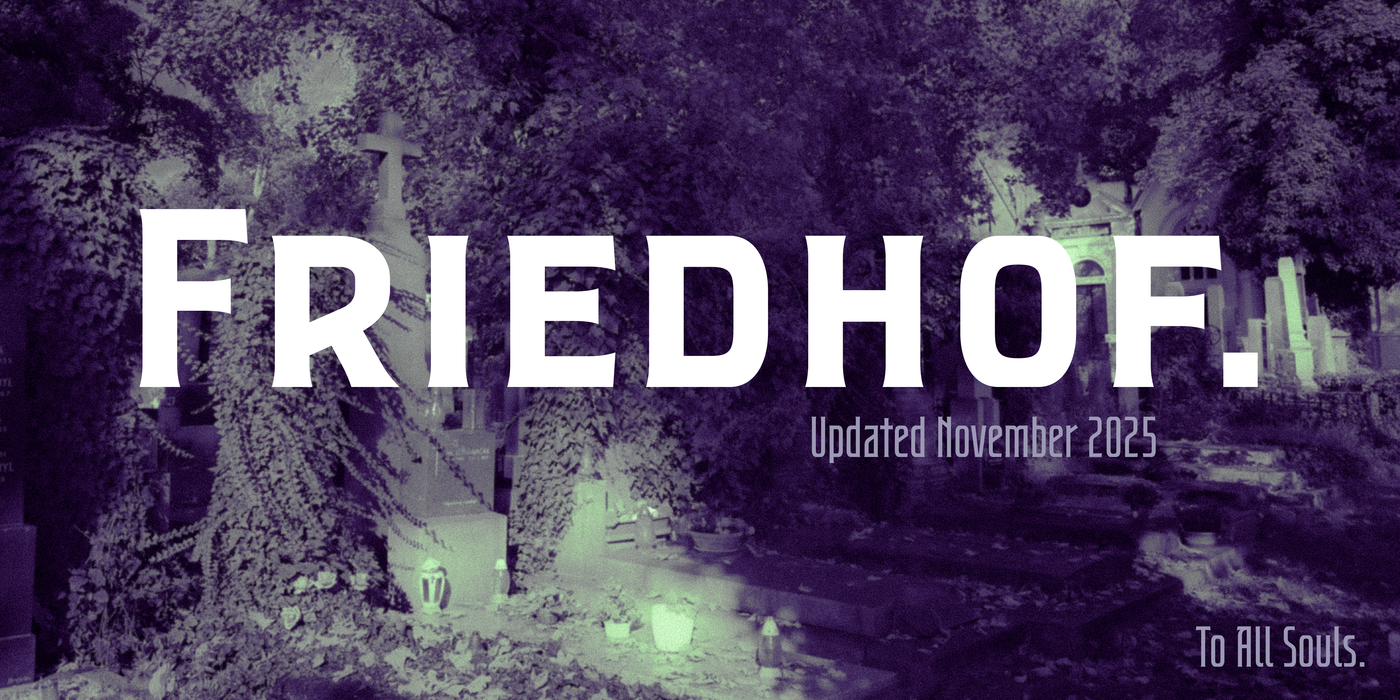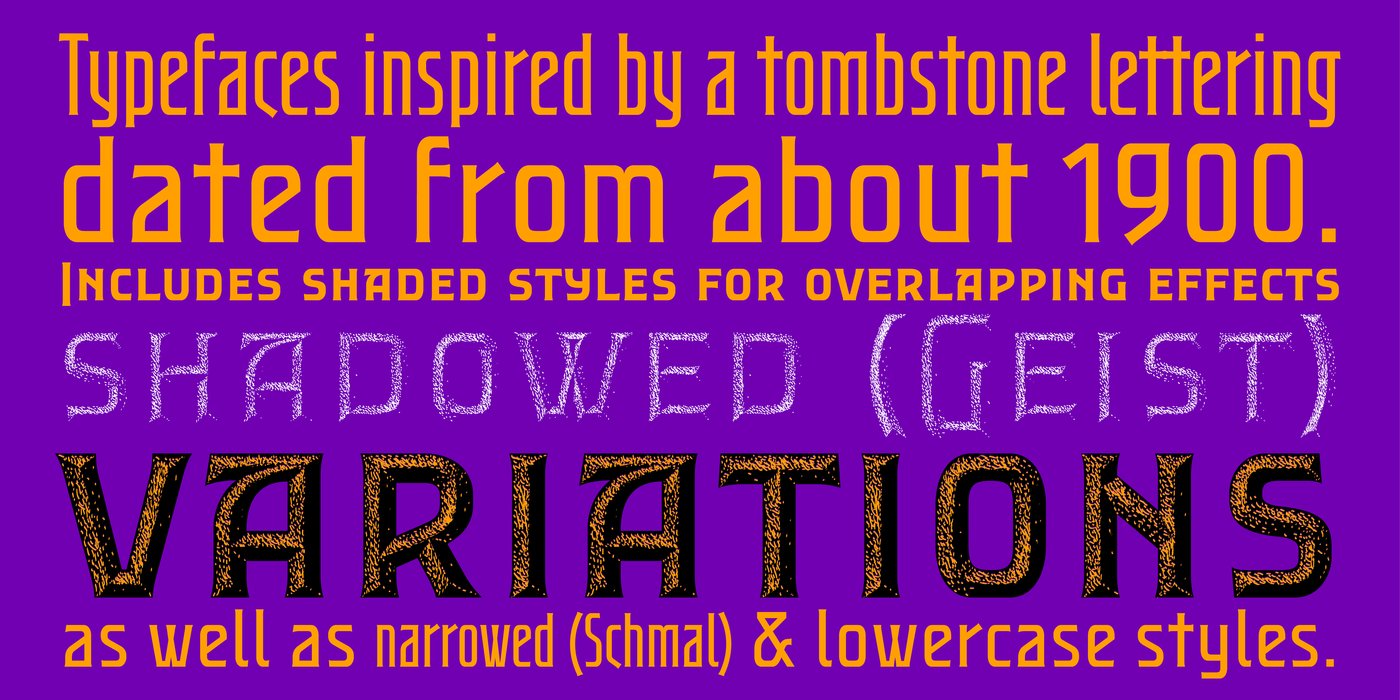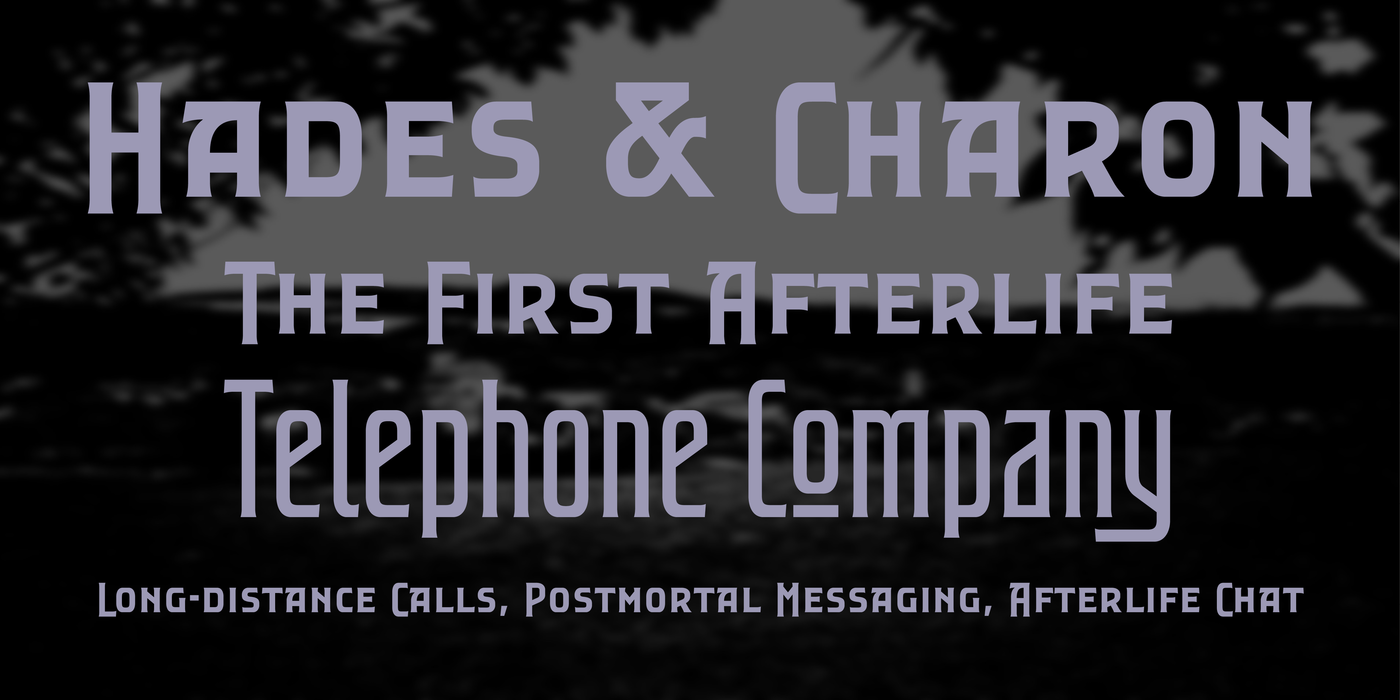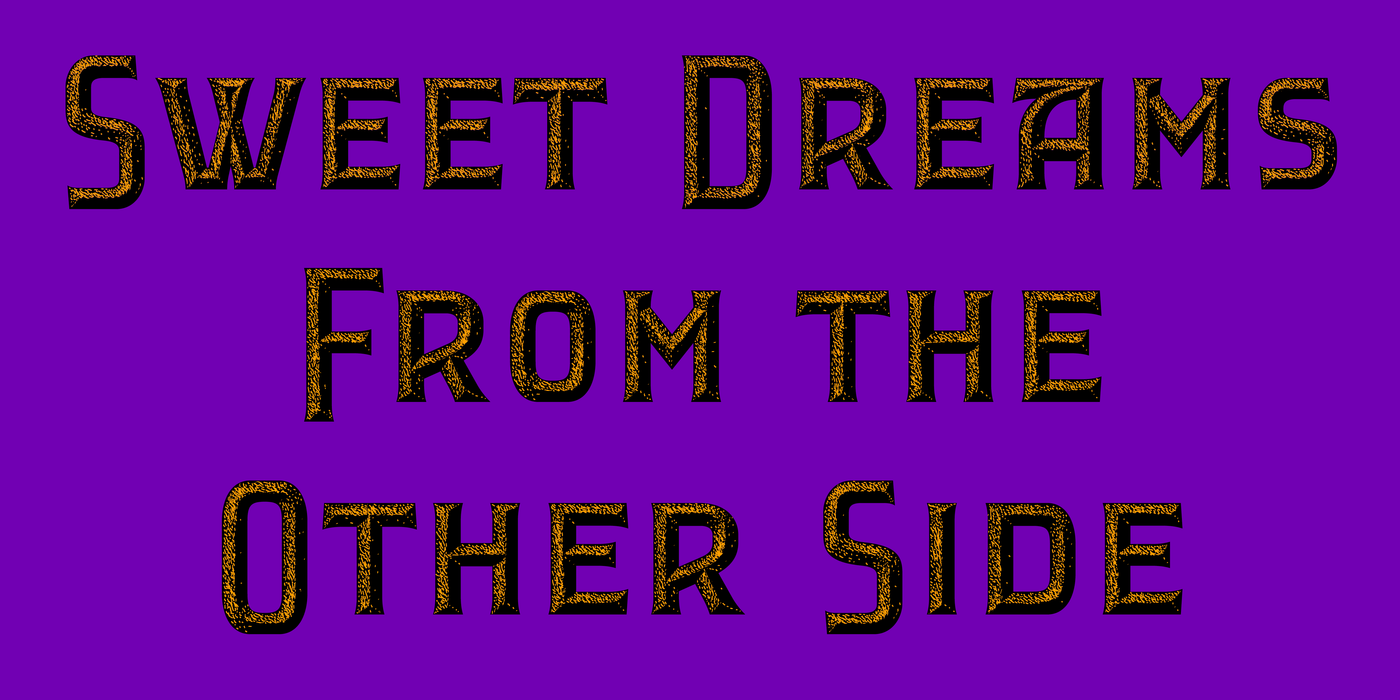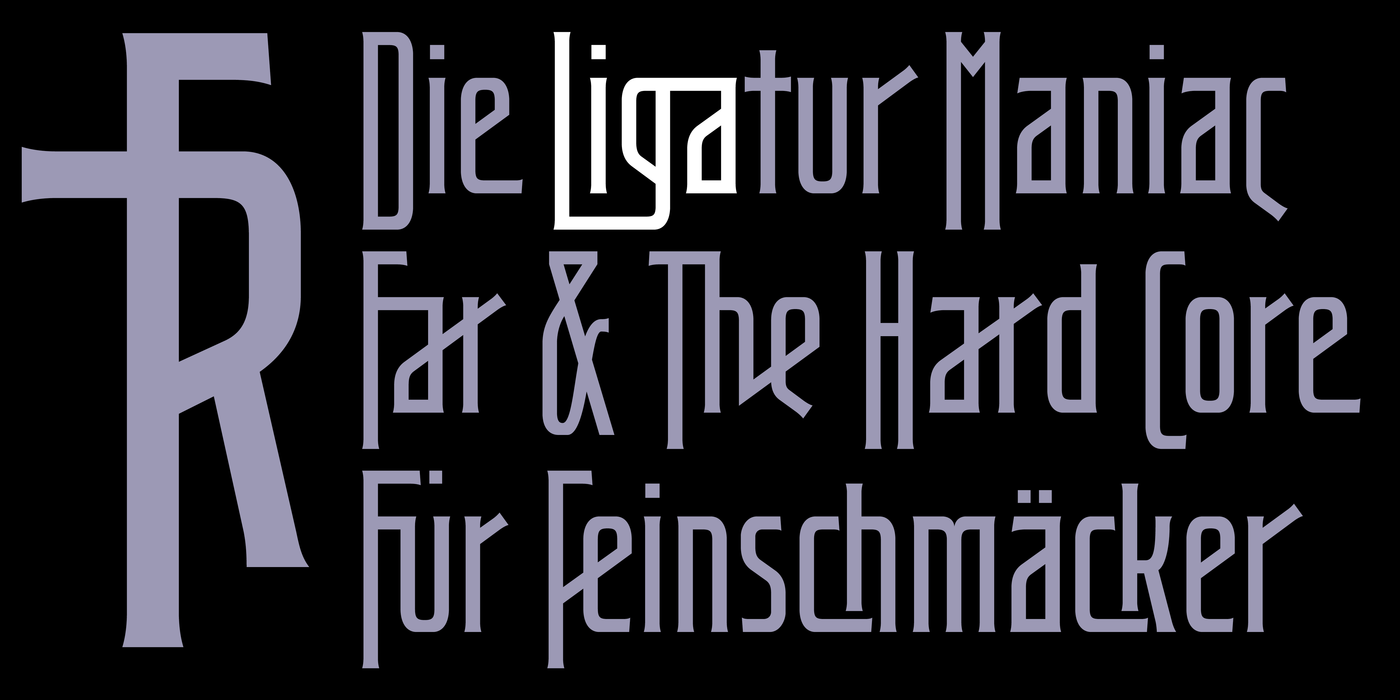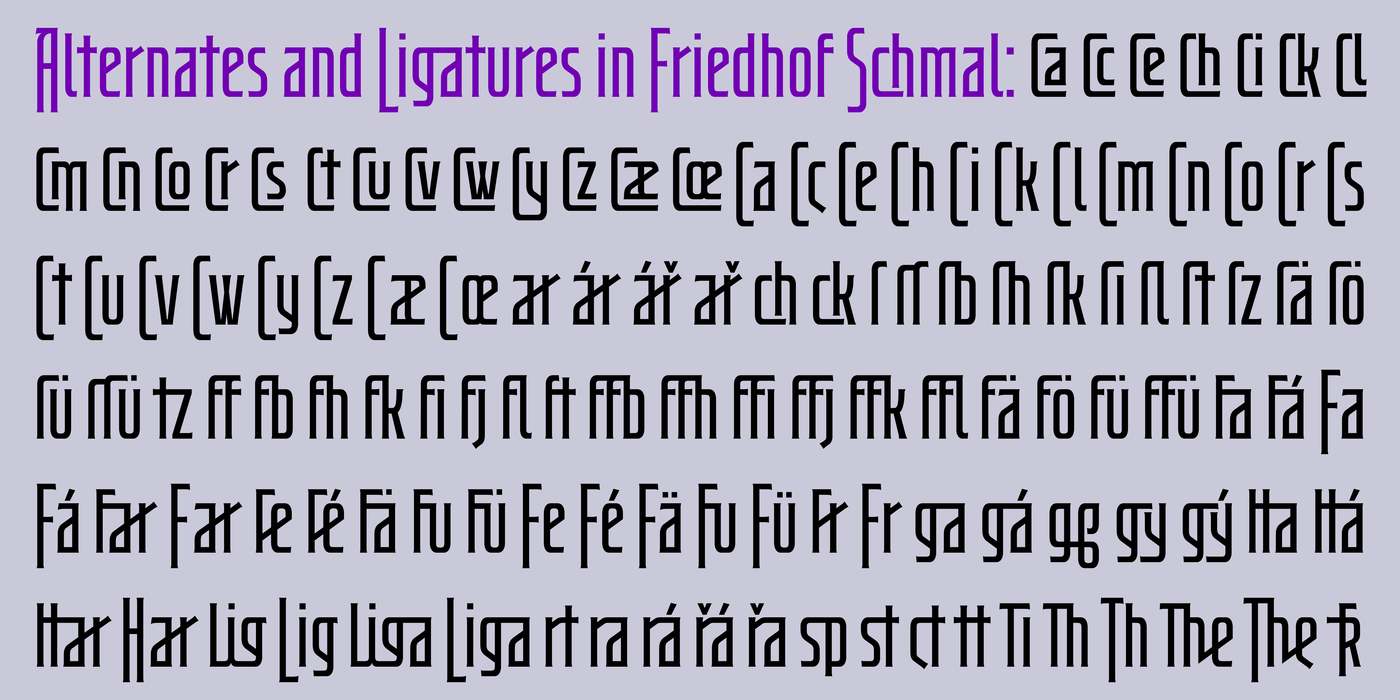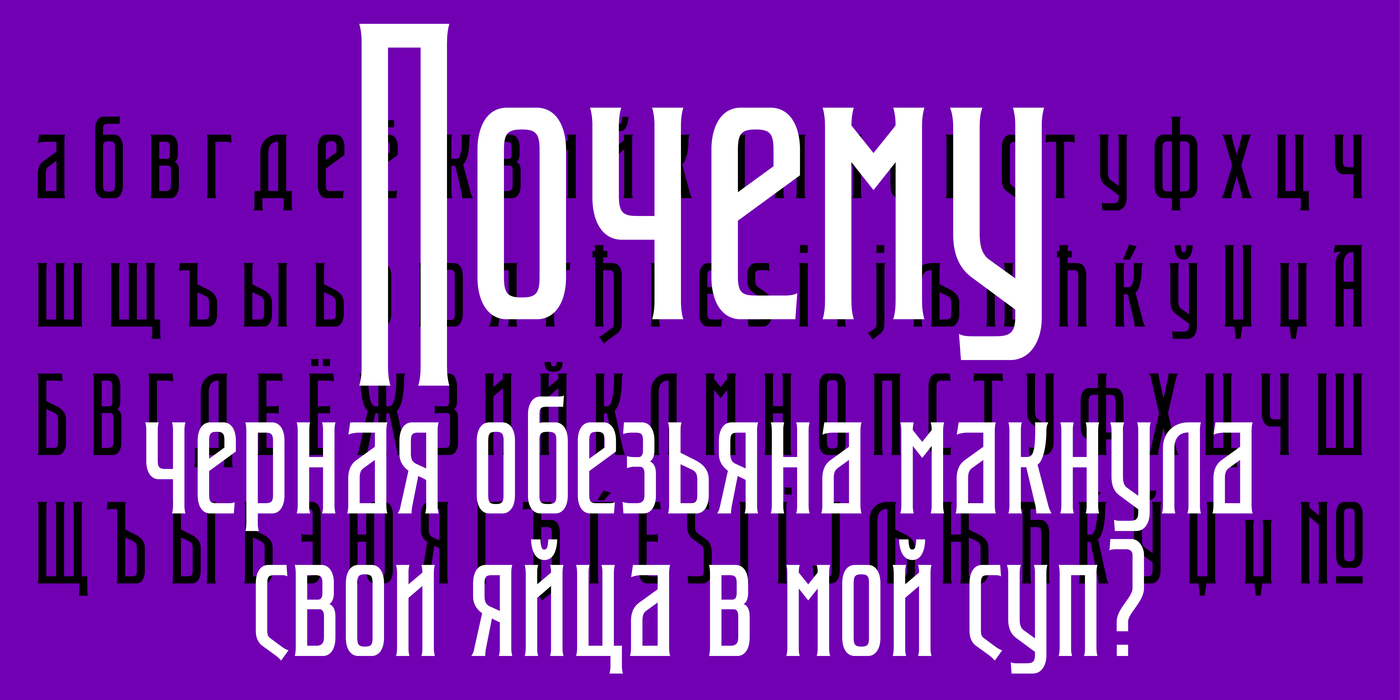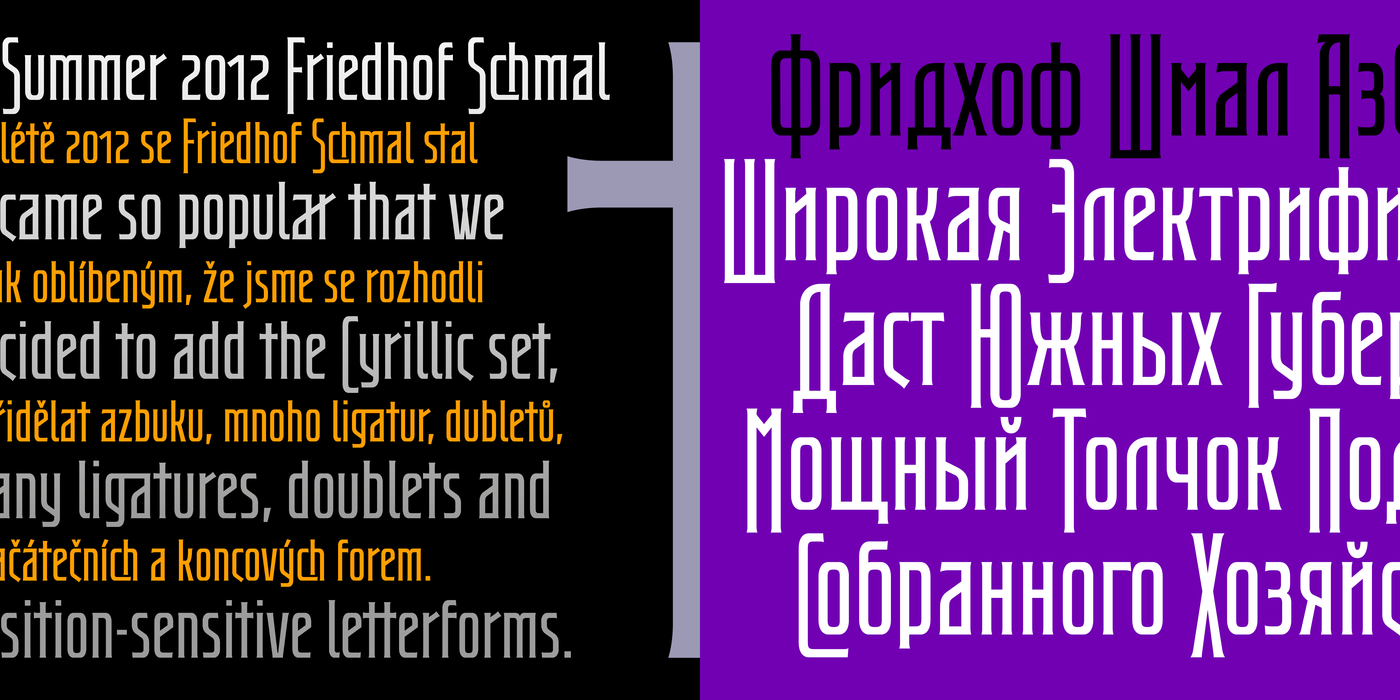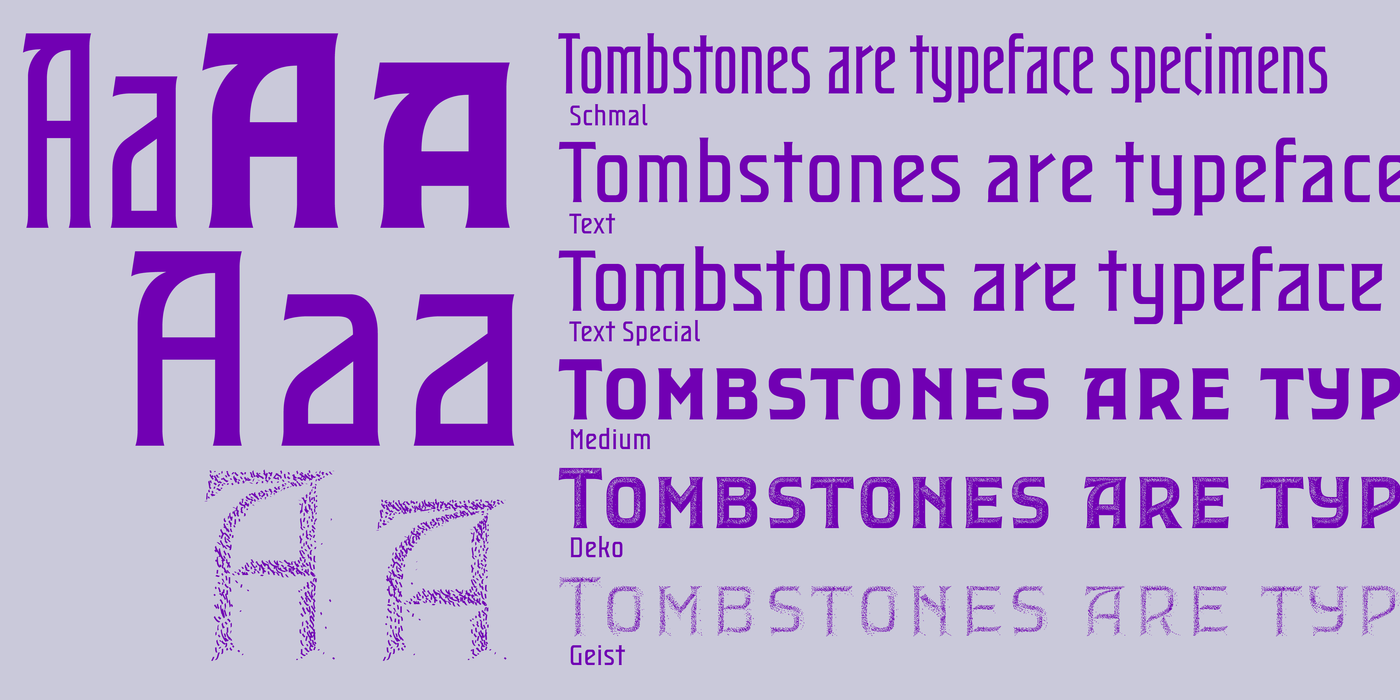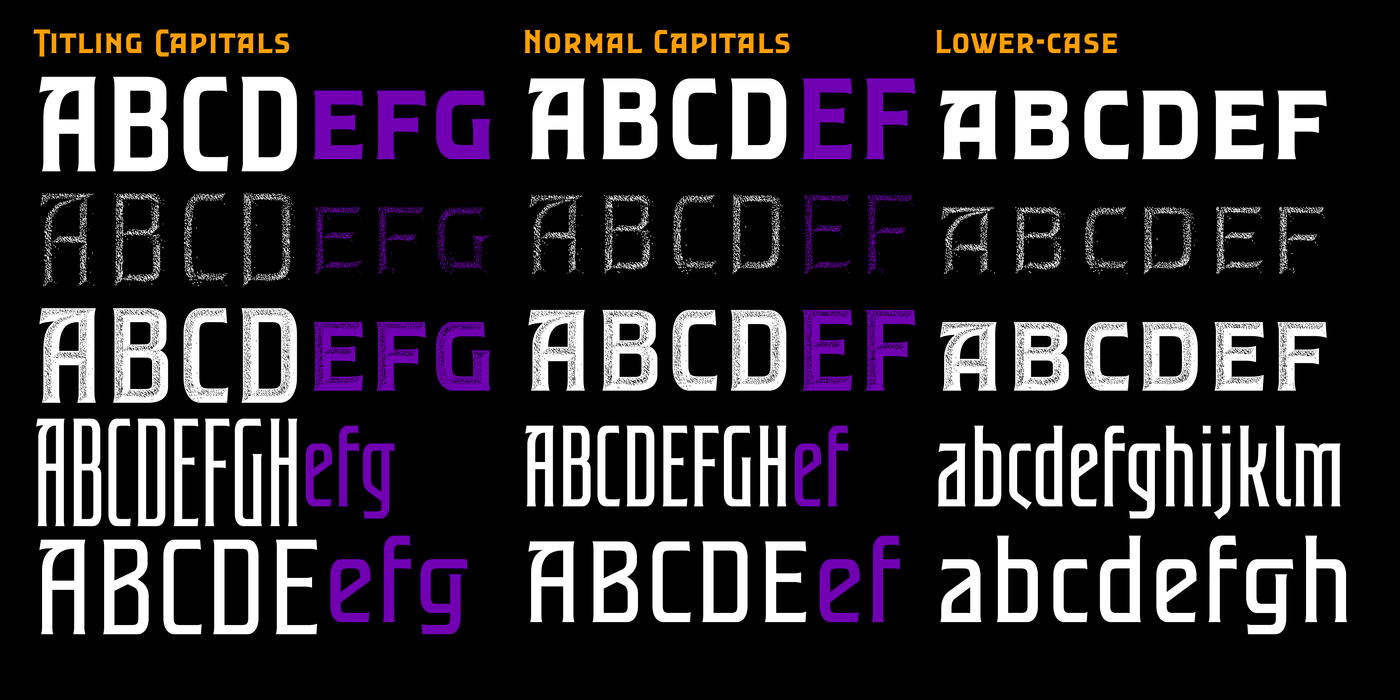
Friedhof
by František Štorm
Graveyards are specimens of fascinating lettering reflecting the kind of departed souls they commemorate. The diversity of humankind, the skill of stonemasons, and the fashions of the age are all beautifully mirrored in these inscriptions. Ivy and moss frame charming typographic works, lavish or modest resting places of remembrance. The lettering is usually simple, for the carver has only a short time to complete it — only a few days pass between death and burial. Thus orthogonal forms predominate, naturally suited to the chisel and the direction of its cuts. Our study focused on the simplest kinds, which might be described as a sort of geometric Art Nouveau in typography. These letterforms are perfectly suited for record sleeves, posters and visual identities.
Hroby jsou vzorníky zajímavých písem. Klasických i úpadkových, podle toho, jaký druh nebožtíků označují. Na náhrobnících se krásně zračí pestrost lidského pokolení, zručnost kameníků i módní dobové vlny. Břečťany a mechy rámují půvabná typografická díla – vizitky sousedů i neznámých rodin, okázalé i skromné zastávky vzpomínek. Písma náhrobní bývají zpravidla jednoduchá, protože kameník i sochař mají jen málo času na zhotovení – od skonu k pohřbu uplyne nejvíce několik dní. Převládají proto ortogonání tvary, které se neprotiví tvaru dláta a směru sekání. Naše studie sledovala ty nejjednodušší typy, jež by se snad daly označit jako geometrická secese v typografii. Jsou to písma dobře použitelná i na obaly gramodesek, plakát, a visuální identitu.